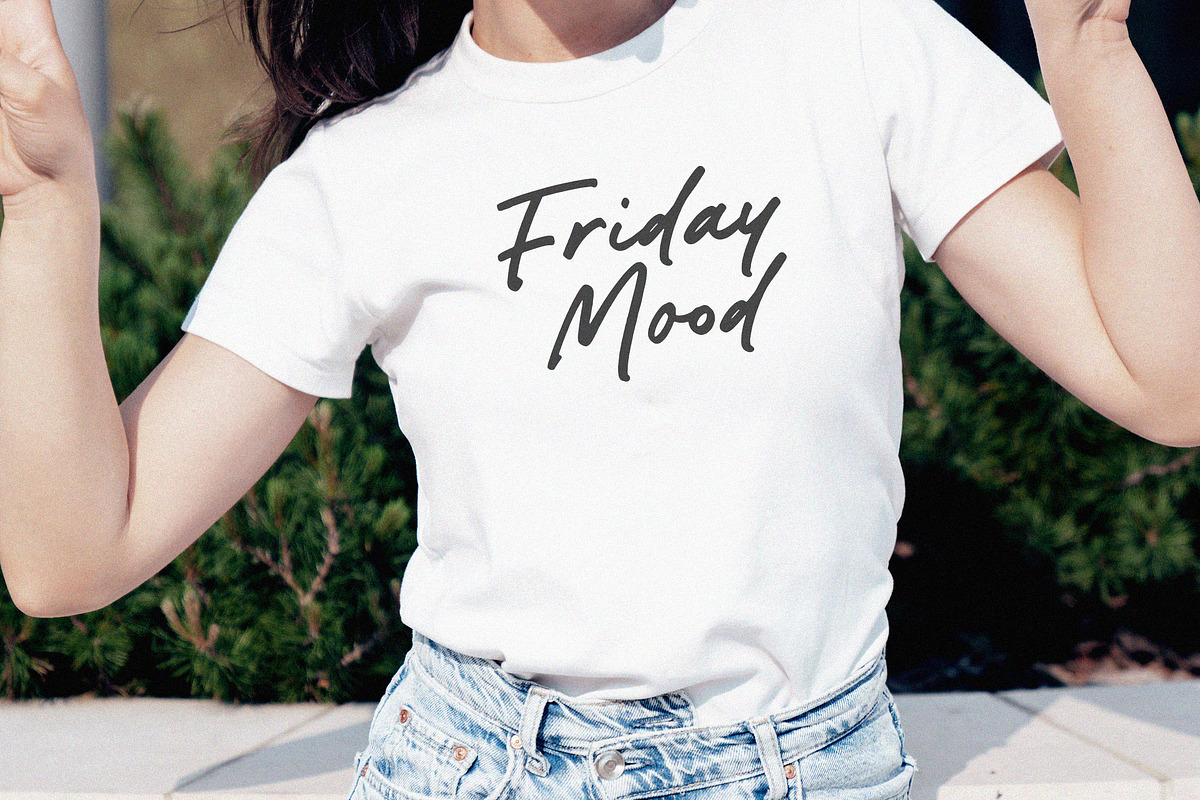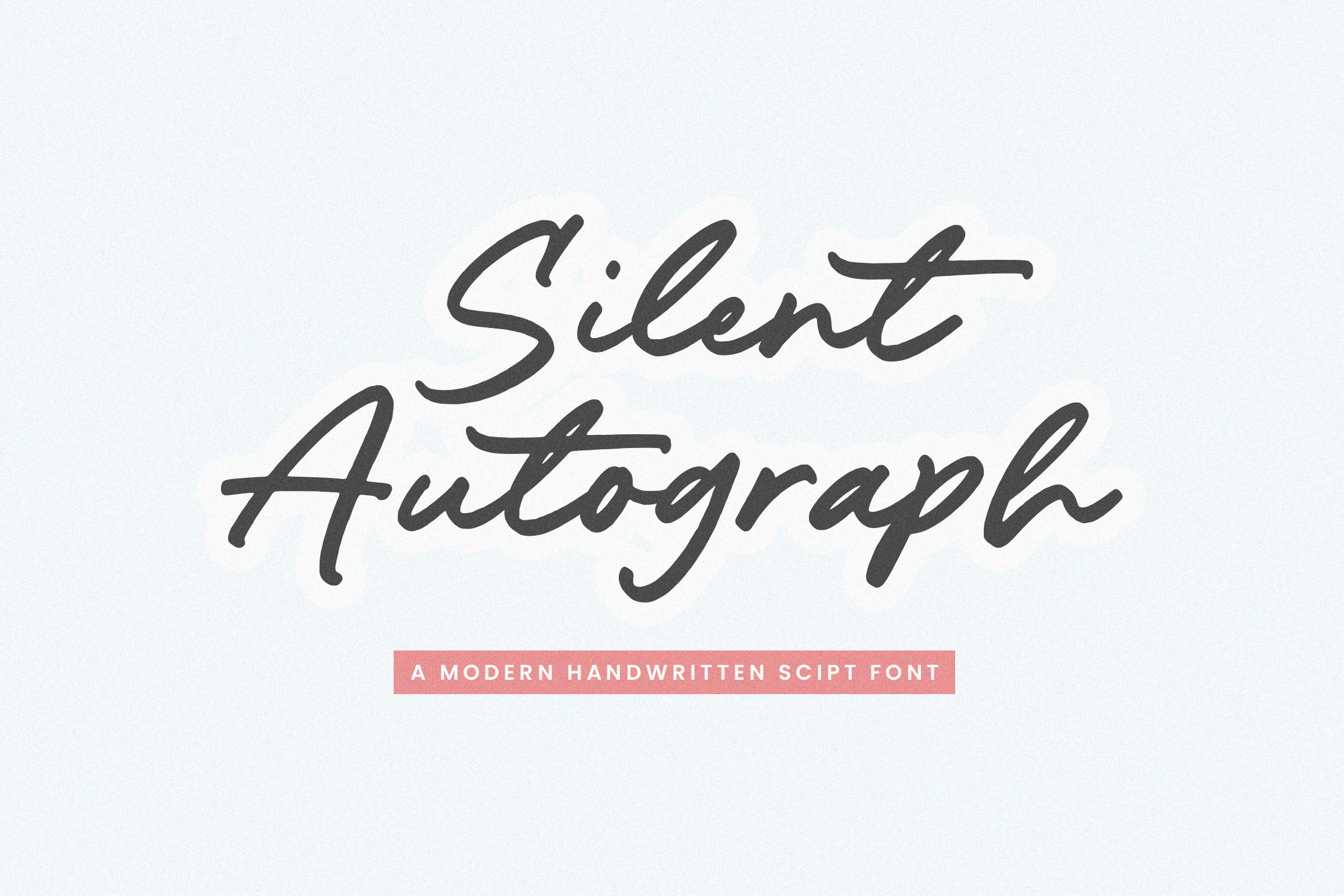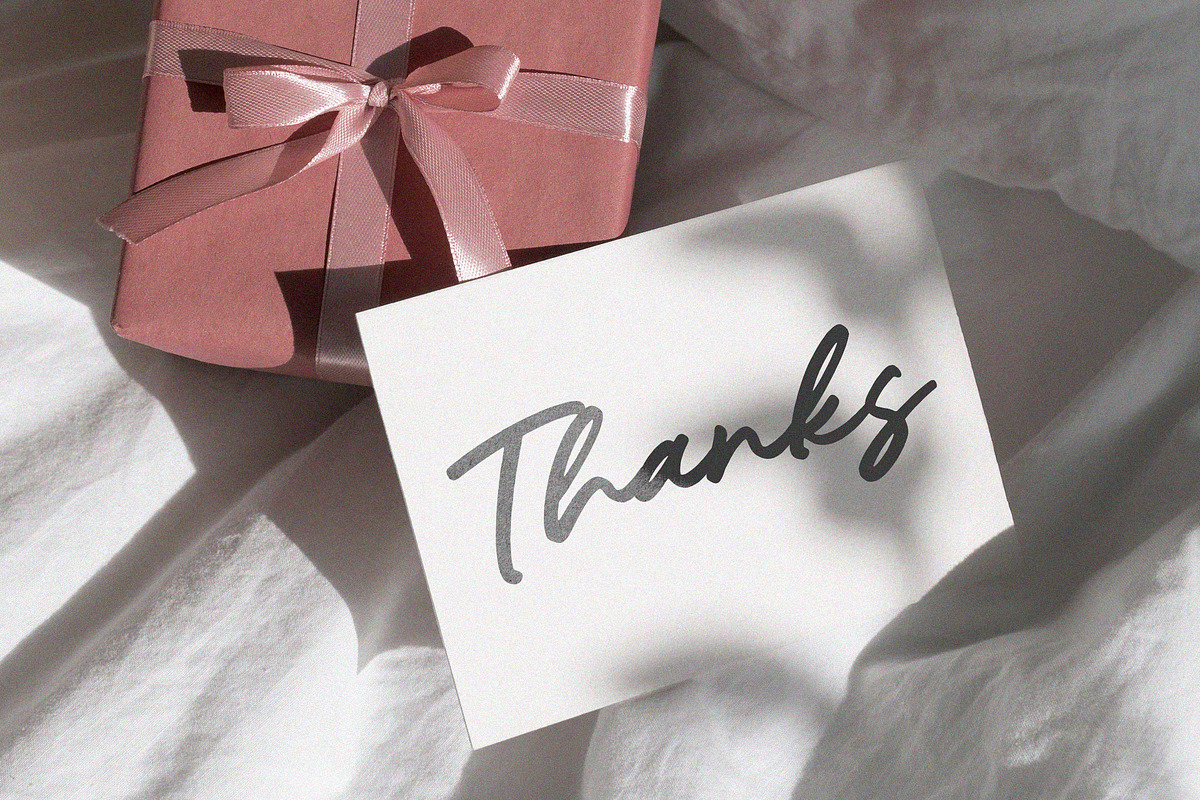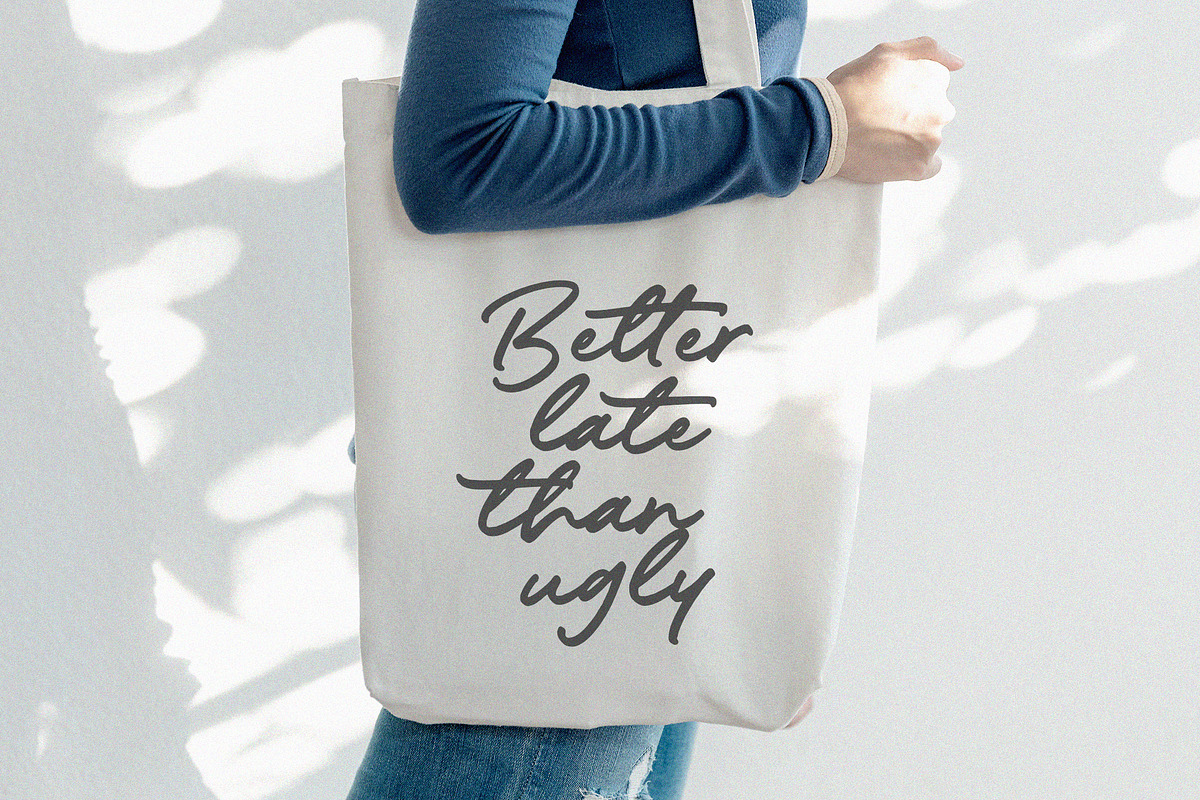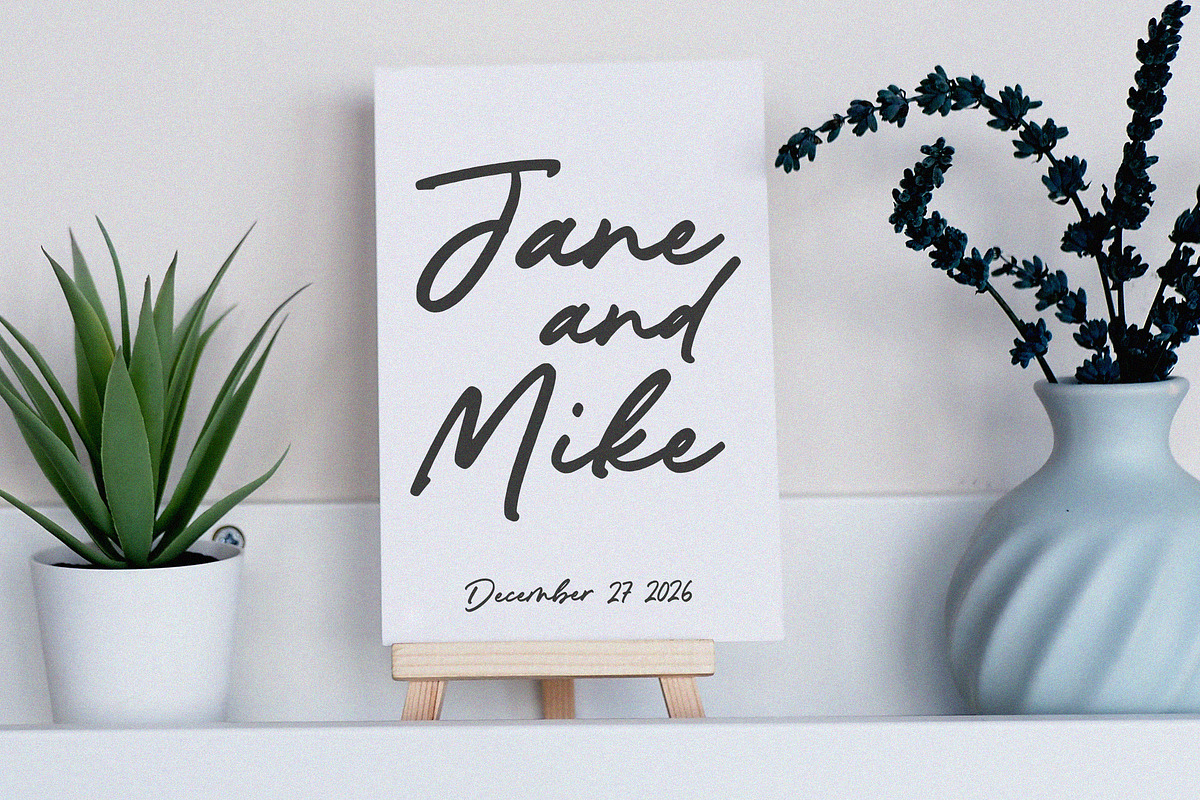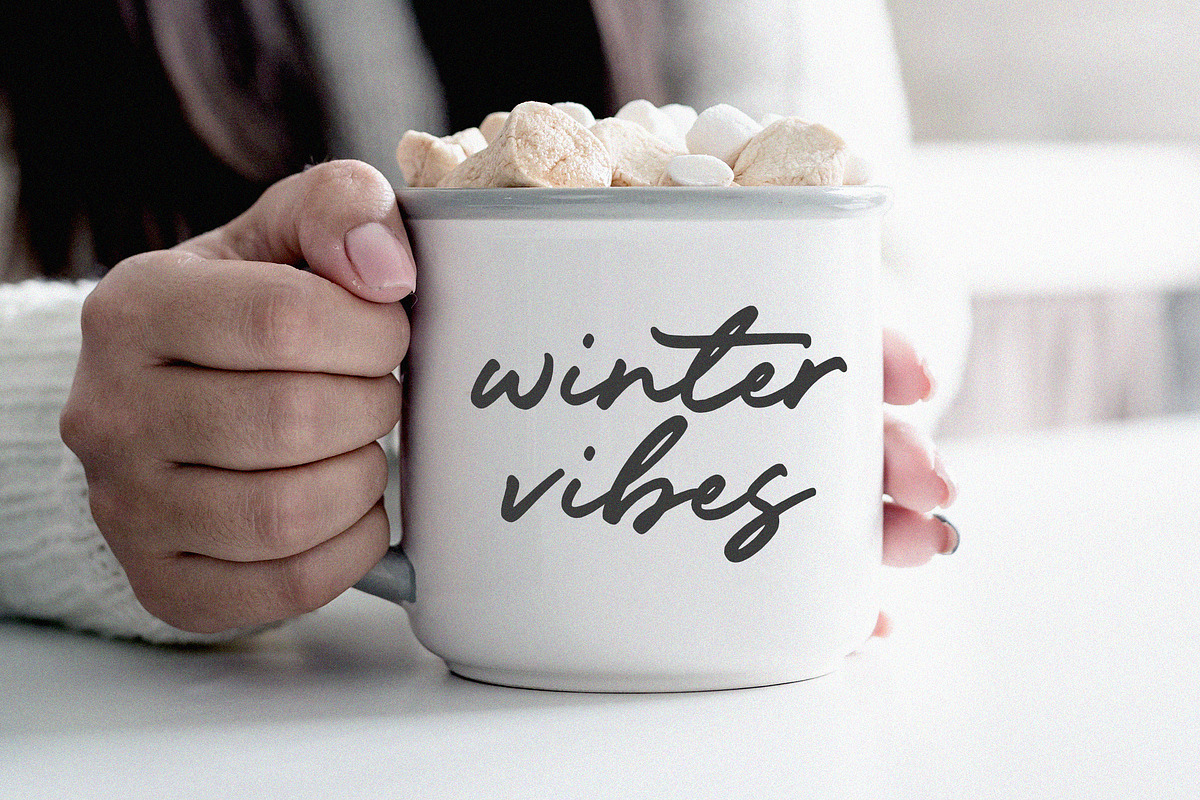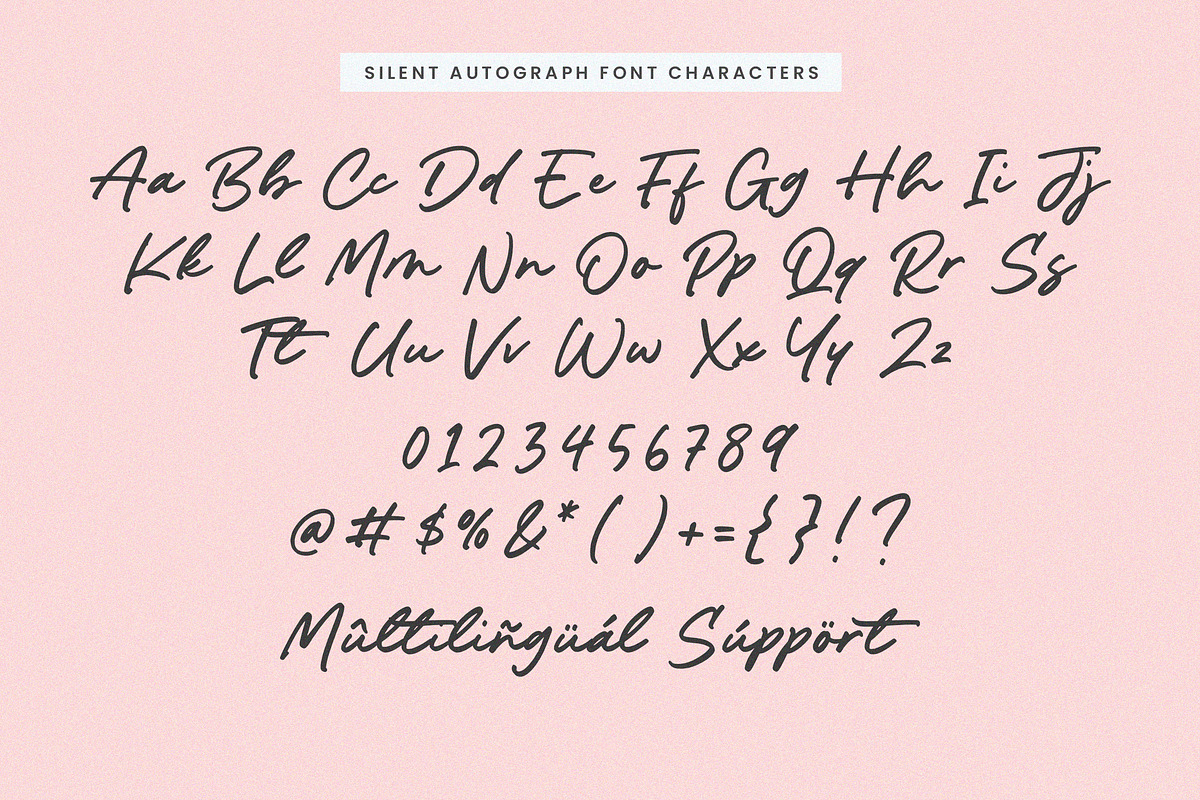
Silent Autograph Font
Silent Autograph is a Modern Handwritten Script Font
This font is a modern handwritten script font that blends casual elegance with a signature style feel. It features smooth, flowing strokes and slightly irregular lines that mimic natural handwriting, giving it an authentic and approachable character. The balanced mix of fluid cursive connections and clean letterforms creates a stylish yet highly legible look, making it ideal for branding, invitations, logos, and creative projects that need a refined touch.
Silent Autograph Font also supports multilingualism